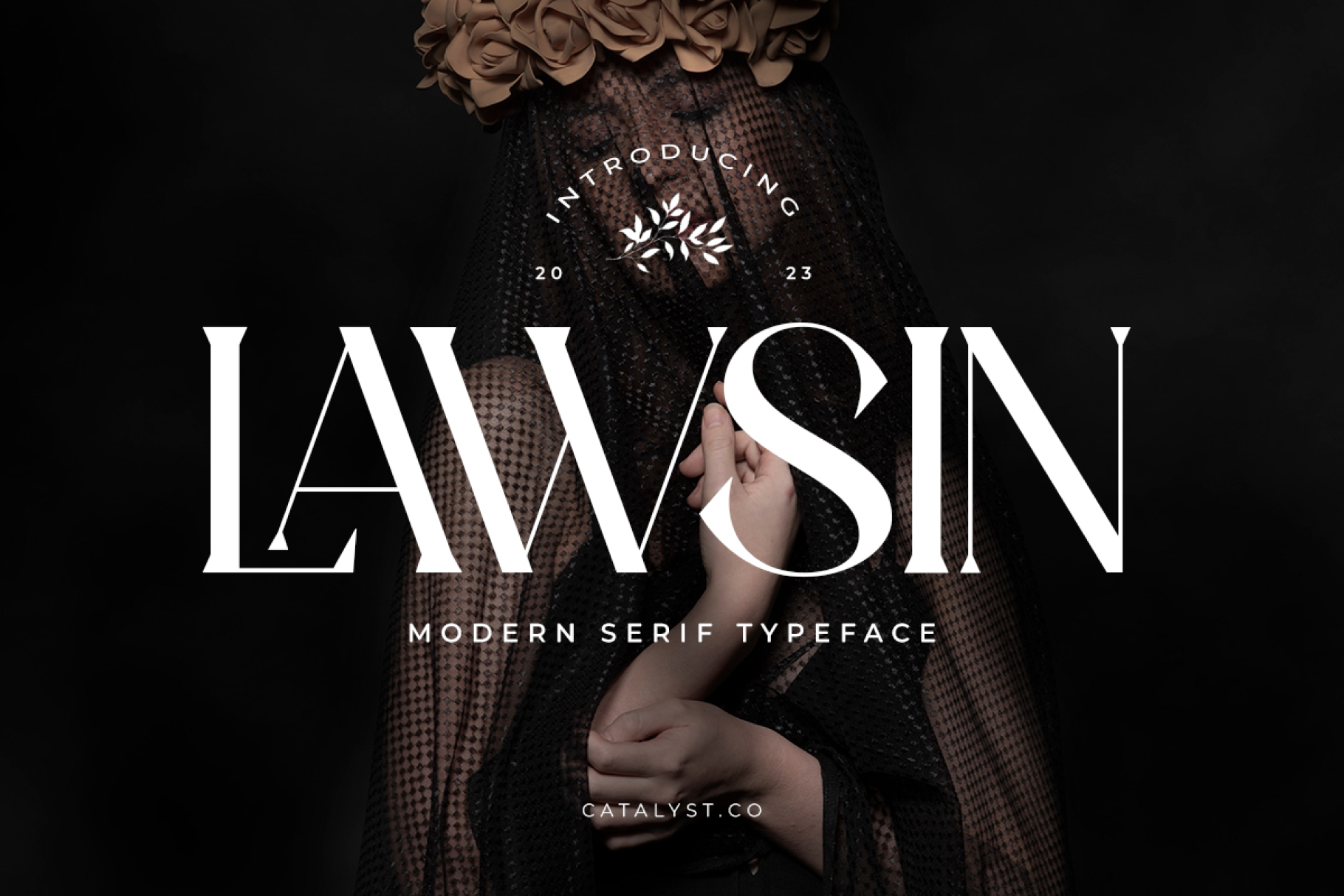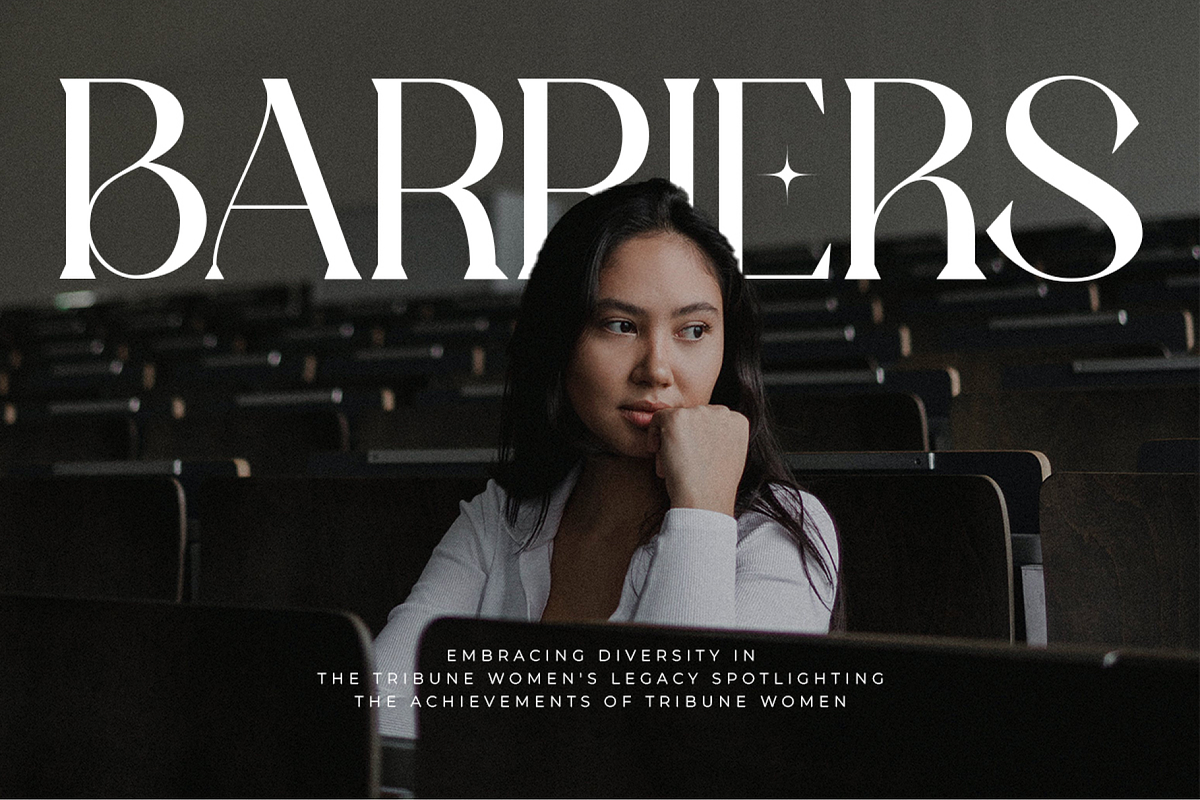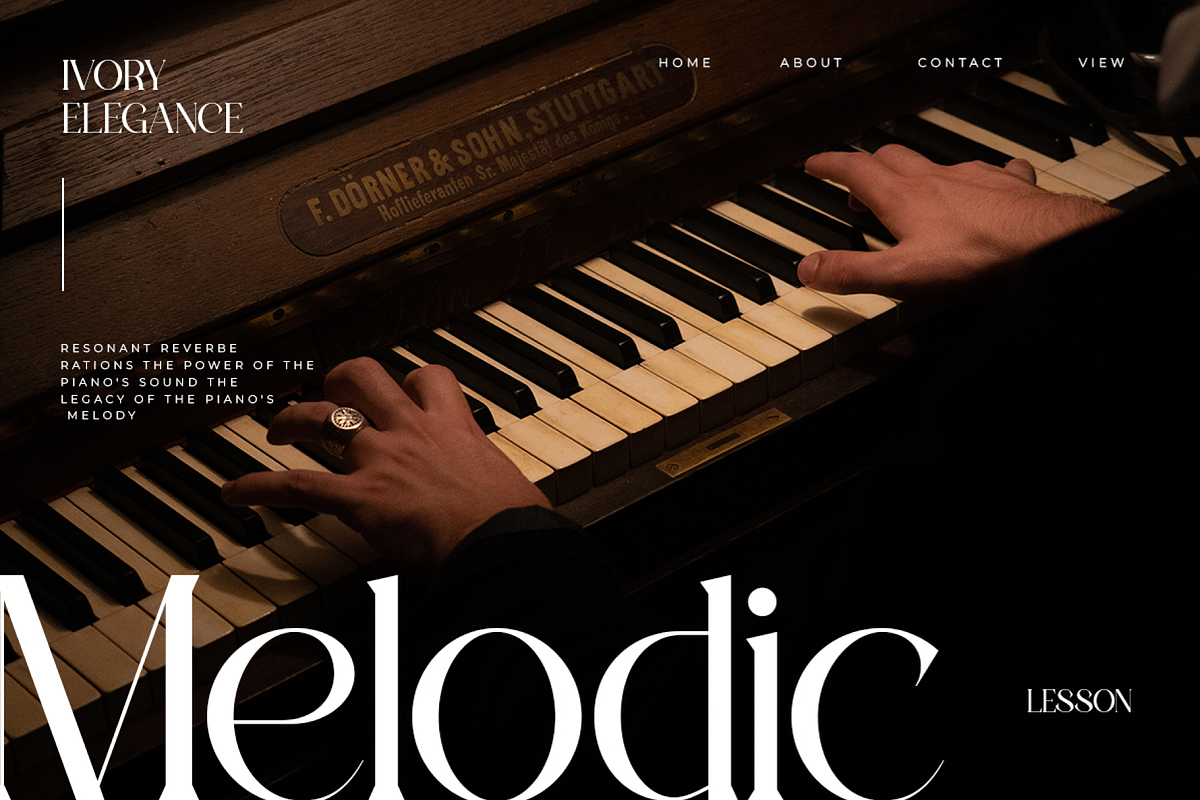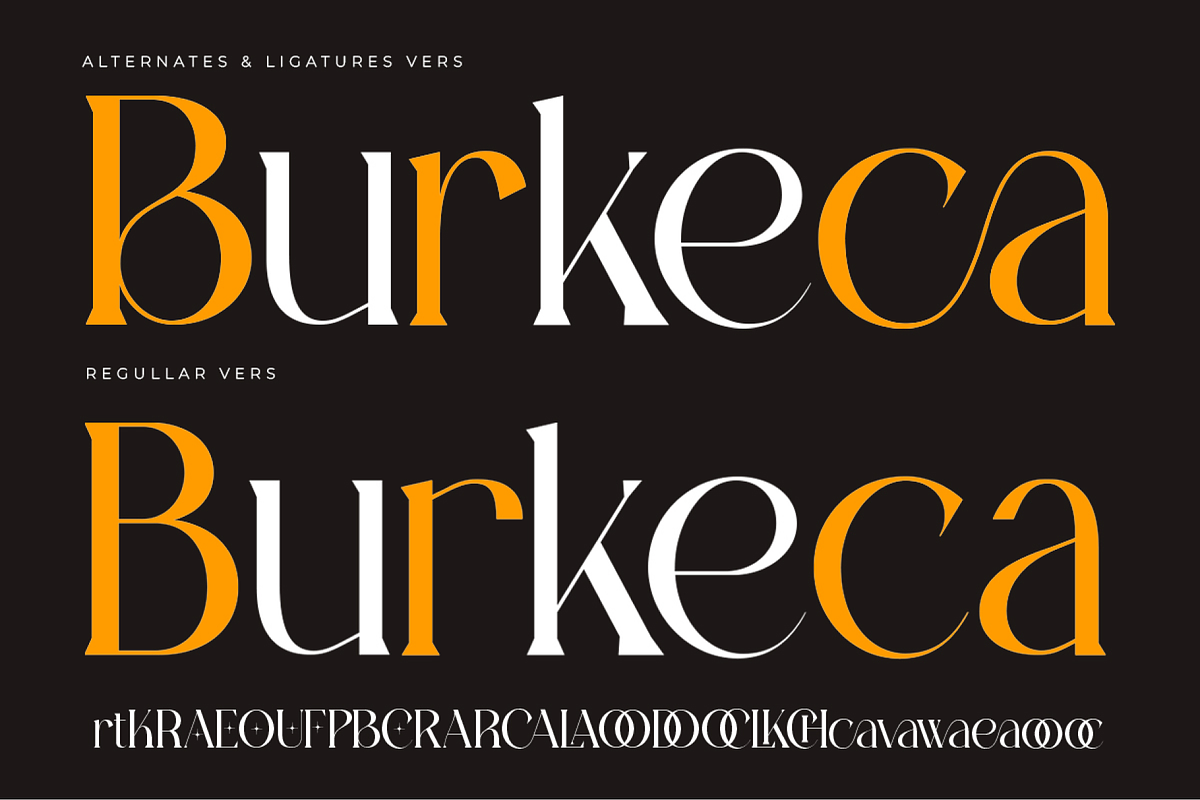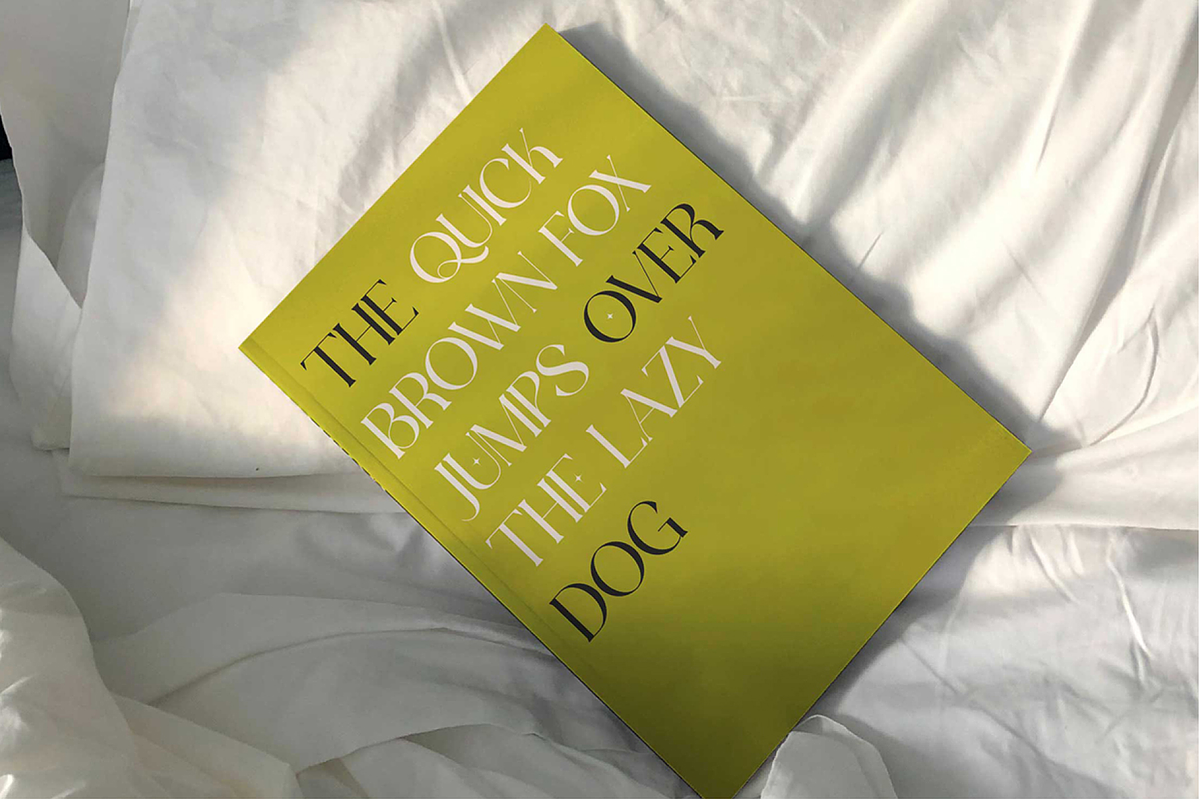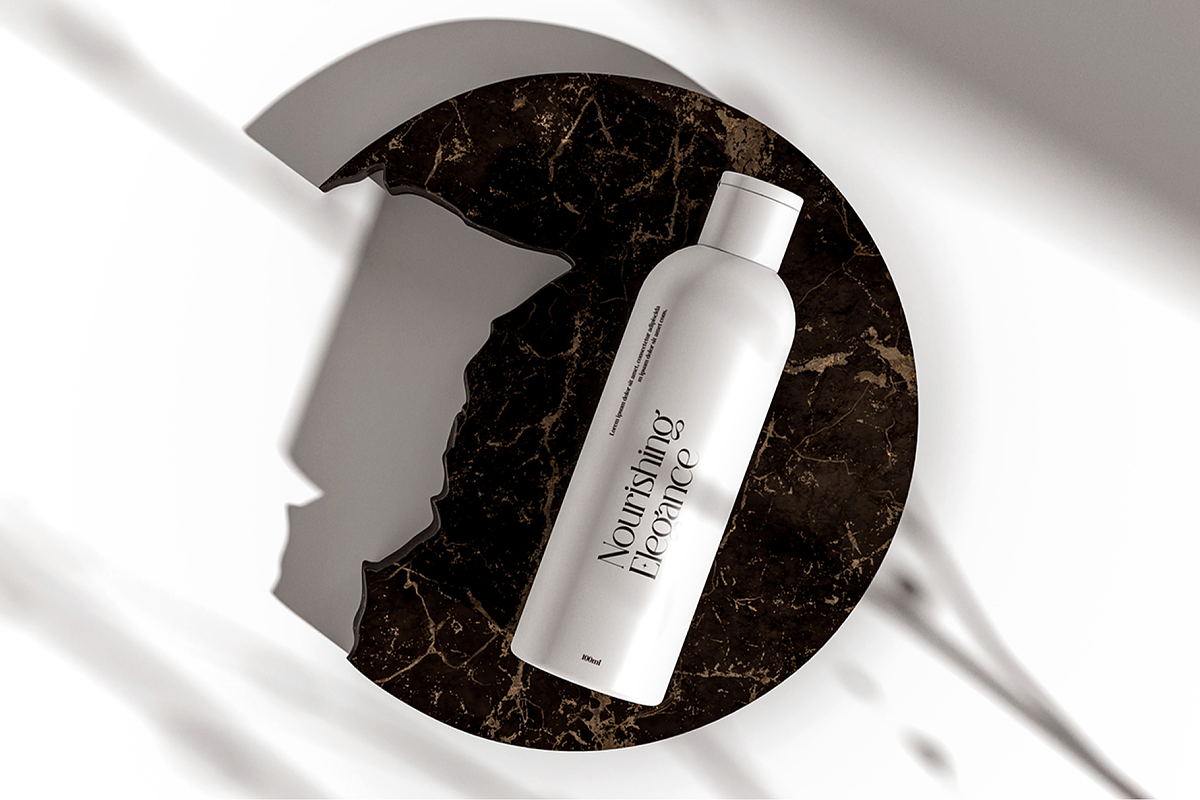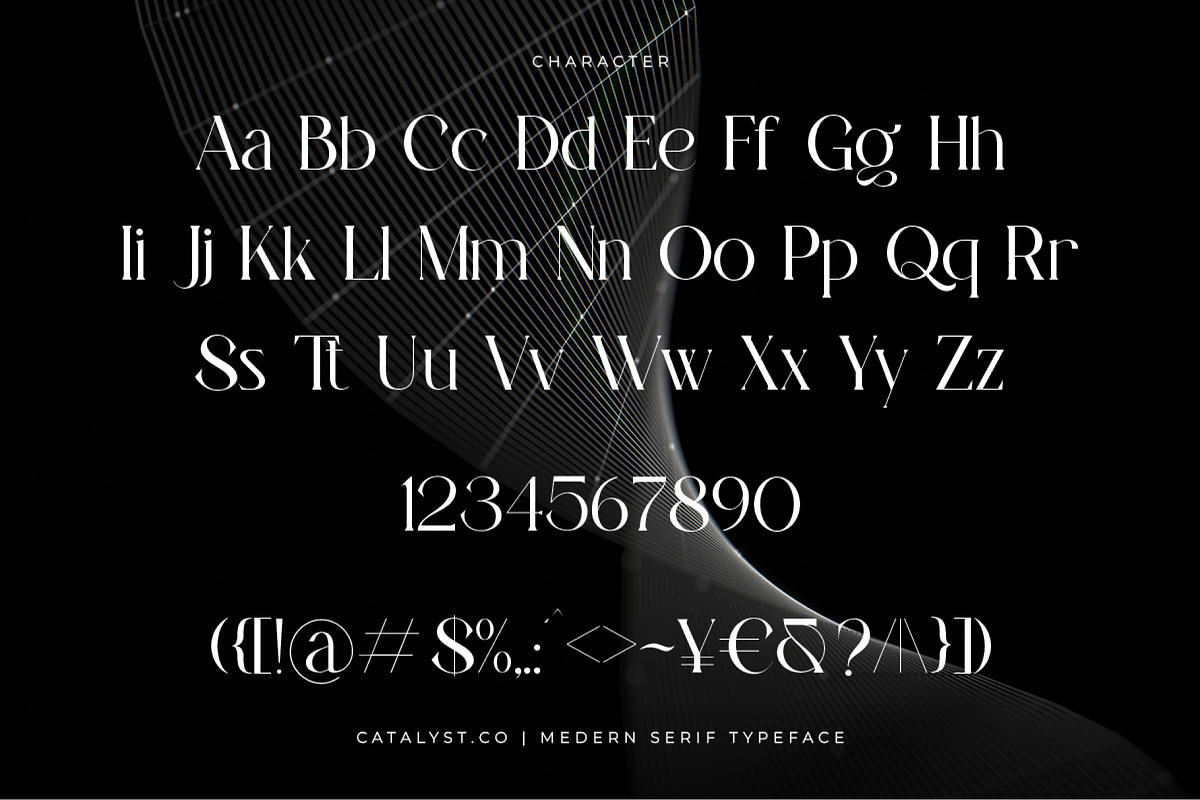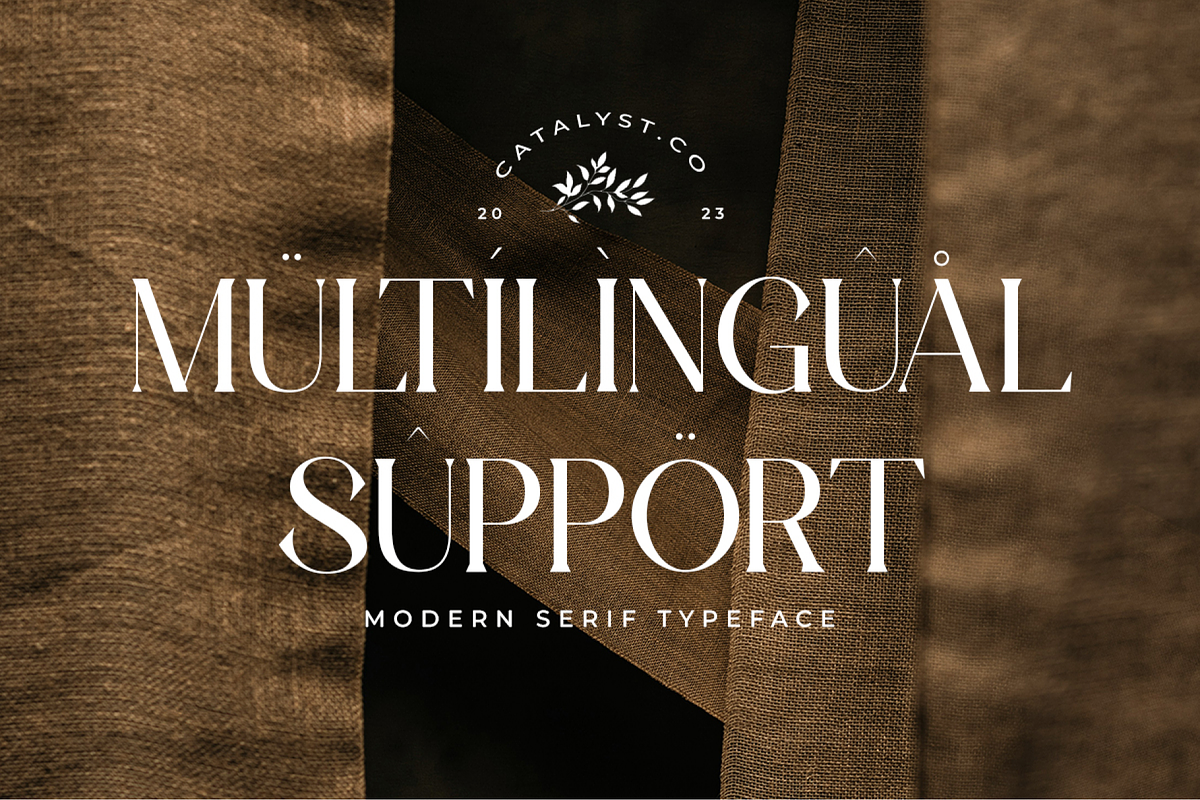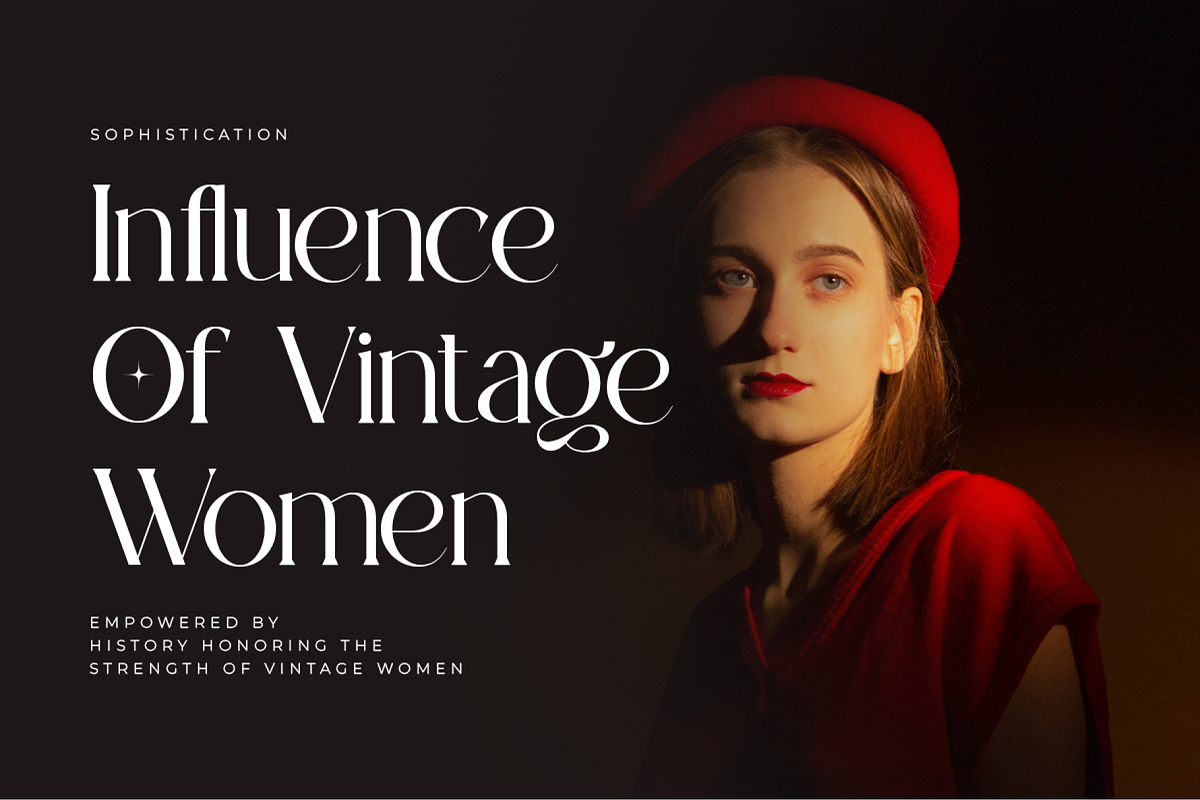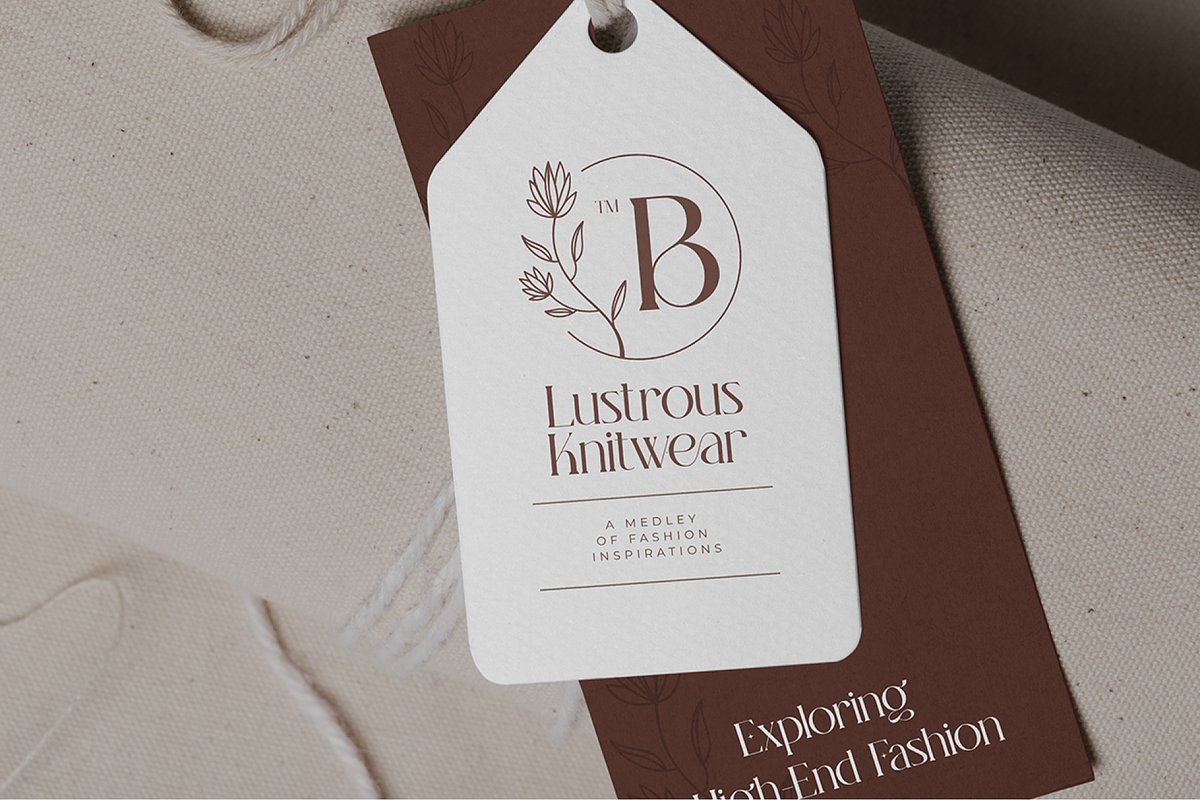
Lawsin Modern Serif Typeface Font
Lawsin Modern Serif Typeface Font typeface excellent used for the manufacture quote text, logotype, header magazine, and many more.
Main Features
- Ligatures & Alternate
- Numeral & Punctuations